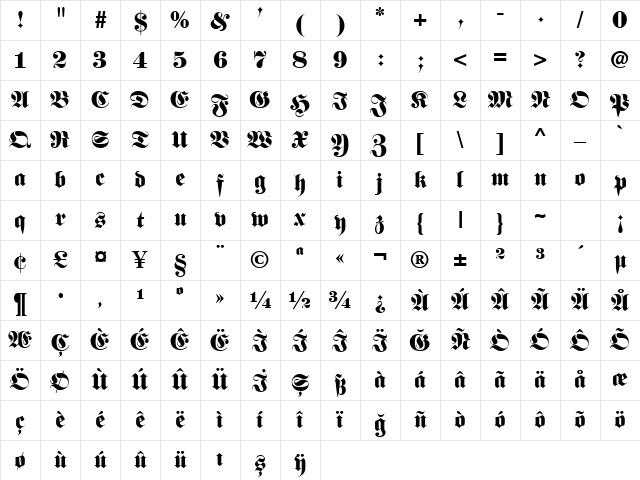
TR Frankenstein Plain Free Font
TR Frankenstein Plain
Complete TR Frankenstein Plain glyph index. Displaying only characters natively supported by TR Frankenstein Plain font.
Design Context for TR Frankenstein
TR Frankenstein is a composed and adaptable typeface that performs quietly and consistently across a wide range of design contexts.